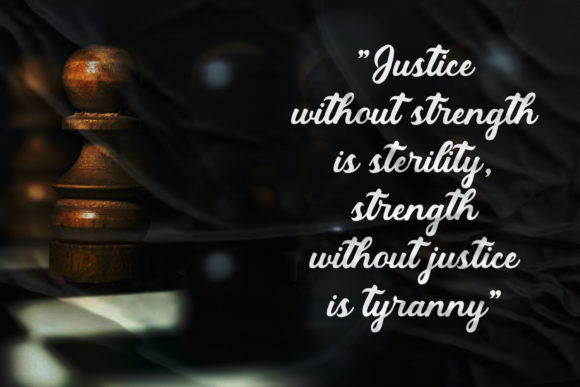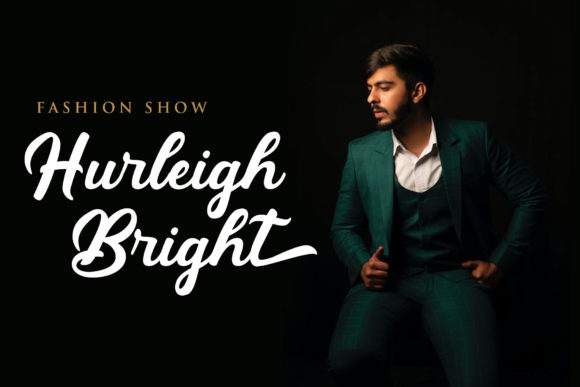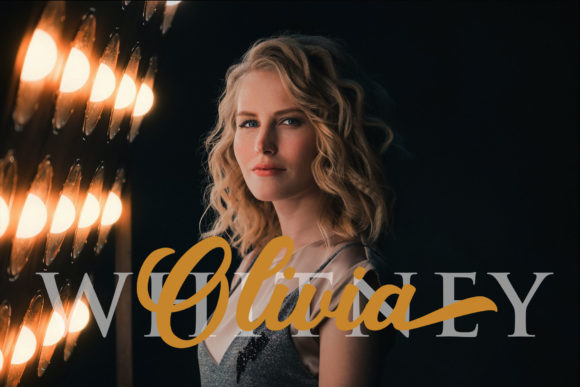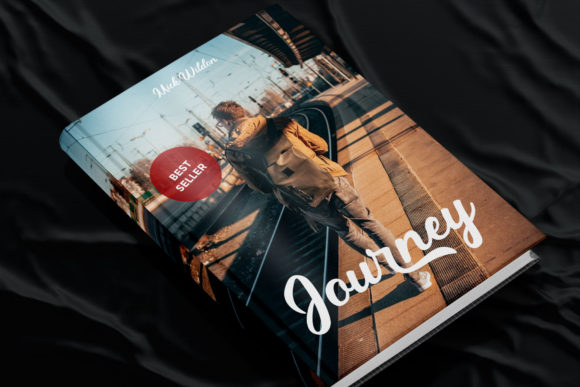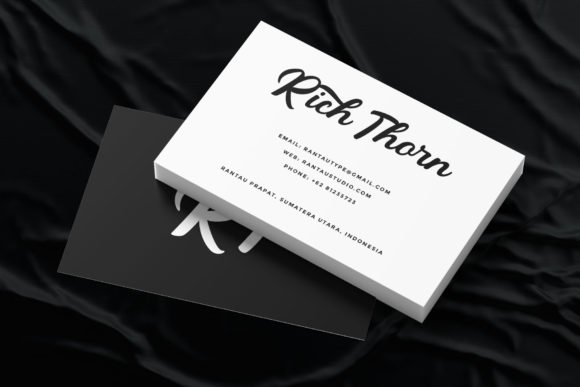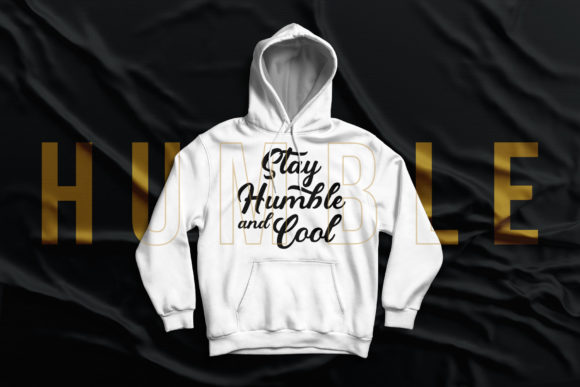
Introduction to Critical Figure Font
Have you ever found yourself staring at a blank canvas, trying to bring your creative project to life, but struggling to find the perfect font to match your vision? For designers, this can be a frustrating experience, especially when the right font can make all the difference between a good design and a great one. That’s where the Critical Figure Font comes in – a sweet and friendly handwritten font that’s about to become your new go-to design resource.
This free download is more than just a pretty face; it’s a high-quality font that’s perfect for a wide range of creative projects, from invitations to social media graphics. With its natural and unique style, the Critical Figure Font is incredibly versatile, allowing you to experiment with different designs and styles without ever feeling limited. And with PUA encoding, accessing all the glyphs and swashes is a breeze, making it easy to add a professional touch to your work.
- Unique, high-quality design ideal for creative projects and designs.
Honest Review: Critical Figure Font
As a designer, I’m always on the lookout for high-quality design resources to elevate my creative projects. The Critical Figure Font is a great find, offering a unique and eye-catching style that’s perfect for making a statement.
- ✨ Unique and futuristic design aesthetic
- ✨ High-quality design, with crisp and clear typography
- ⚠️ Limited character set, which may be a concern for designers working on longer texts
- ⚠️ Not ideal for body text, as it’s quite bold and attention-seeking
Overall, I’m impressed with the Critical Figure Font’s potential to add a touch of futurism to my design projects. While it may not be suitable for all types of projects, it’s a great resource to have in my toolkit. I’d definitely recommend it to designers looking for a bold and eye-catching font.
The Critical Figure Font is a versatile design resource that can elevate your creative project to the next level. With its high-quality, transparent background, and unique style, this font is perfect for designers looking to add a touch of sophistication to their work.
The Critical Figure Font is perfect for a variety of design projects, including:
- Business presentations and reports
- Marketing materials and brochures
- Website and app design
- Print materials and flyers
Alternatives to Critical Figure Font
Montserrat Font is a popular sans-serif font ideal for creative projects that require a clean and modern design. It’s available for free download and comes with a transparent background, making it suitable for various design applications. When to use: ideal for web design, mobile apps, and digital products. Compared to Critical Figure Font, Montserrat Font has a more straightforward and minimalist design, making it a better choice for projects that require a simple and elegant look.
Open Sans Font is a highly legible and versatile font suitable for various design projects. It’s a free download and comes in a high quality, making it a great resource for designers. When to use: ideal for blog posts, articles, and marketing materials. Compared to Critical Figure Font, Open Sans Font has a more neutral and professional tone, making it a better choice for projects that require a formal and approachable design.